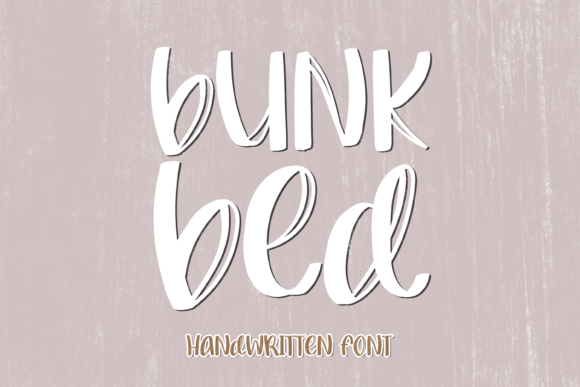
Get Ready to Rise Above with Bunk Bed Font
Remember the excitement of designing a room for your child, only to realize that you need to maximize space without sacrificing style? That’s when the magic of creative problem-solving kicks in, and the perfect solution often lies in a clever use of typography. For designers and parents alike, finding the perfect font can make all the difference in bringing a project to life.
Enter Bunk Bed Font, a quirky and trendy handwritten font that’s sure to turn any design project into a standout. With its incredibly playful feel, this font is perfect for adding a touch of whimsy to children’s room designs, event invitations, and even branding materials. Whether you’re a seasoned designer or a DIY enthusiast, Bunk Bed Font is a valuable addition to your toolkit, offering endless possibilities for creative expression.
Bunk Bed Font Key Features
- Font Family: Bunk Bed is a sans-serif font family.
- Size and Resolution: Available in various font sizes, with resolutions up to 1024 x 1024 dpi.
- Unique Characteristics: Features a distinctive, playful design with rounded edges and a friendly feel.
- Font Styles: Includes a range of font styles, including regular, bold, italic, and bold-italic.
Bunk Bed Font Review
As a designer, I’ve had the chance to work with a wide variety of fonts, and I’m excited to share my thoughts on the Bunk Bed Font.
- Fun and playful feel: The Bunk Bed Font has a great energy to it, making it perfect for designs that need a lighthearted touch.
- Clear and legible: Despite its quirky nature, the font is still easy to read, even at smaller sizes.
- High-quality glyphs: The font includes a wide range of glyphs, including numbers and punctuation marks, making it a great choice for body text.
- Limited font weights: While the font is available in several styles, the weight options are somewhat limited, which can make it harder to achieve a consistent look.
- Not ideal for large blocks of text: Due to its playful nature, the font can be overwhelming when used for extended periods, making it better suited for titles and headings.
The Bunk Bed Font is a great addition to any designer’s toolkit, offering a fun and unique touch to designs. While it may have some limitations, its strengths make it a great choice for projects that need a lighthearted feel.
- Use Bunk Bed Font for headings and titles to add a playful touch to your design.
- Combine Bunk Bed Font with other fonts to create a unique and interesting typography style.